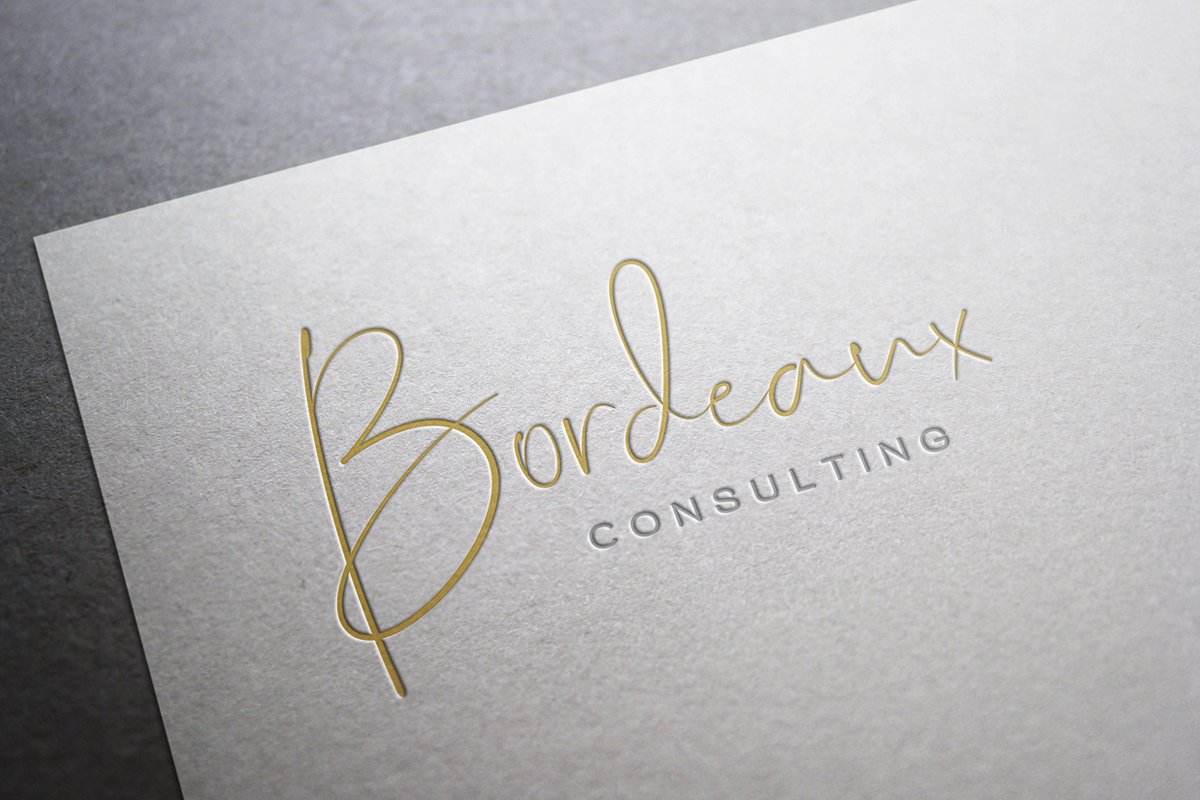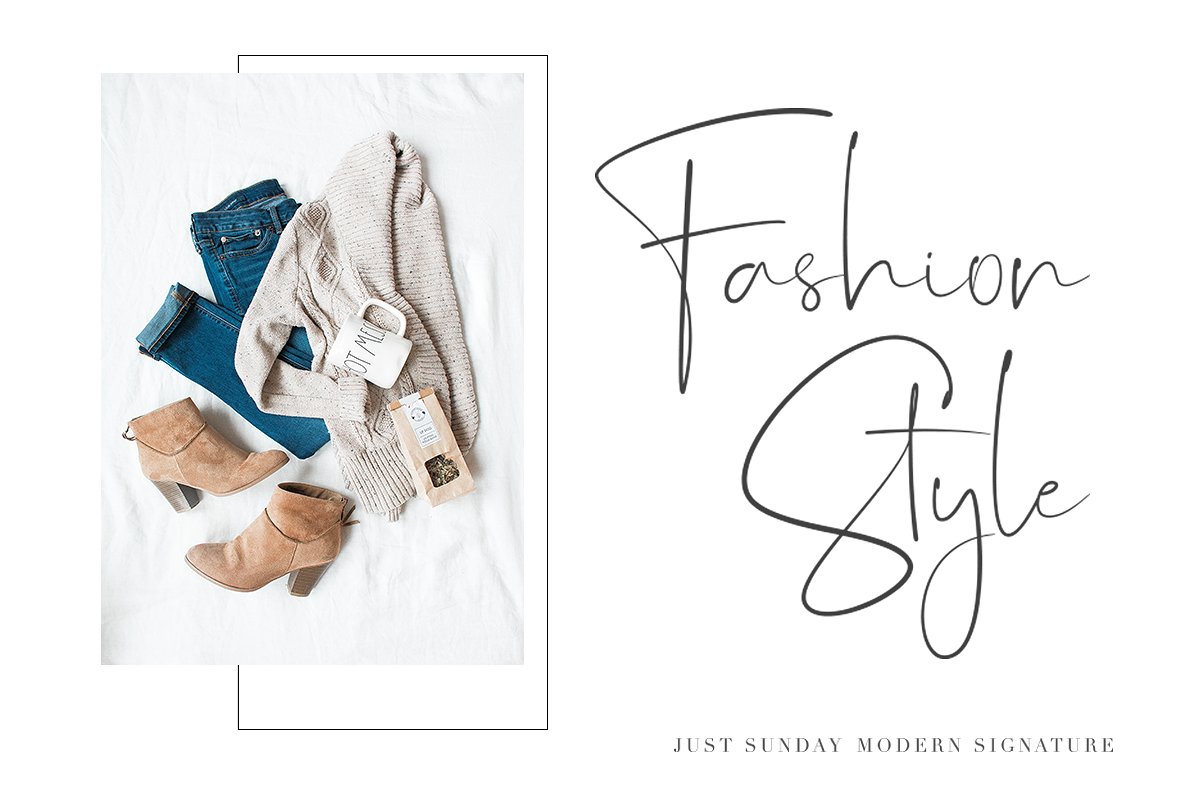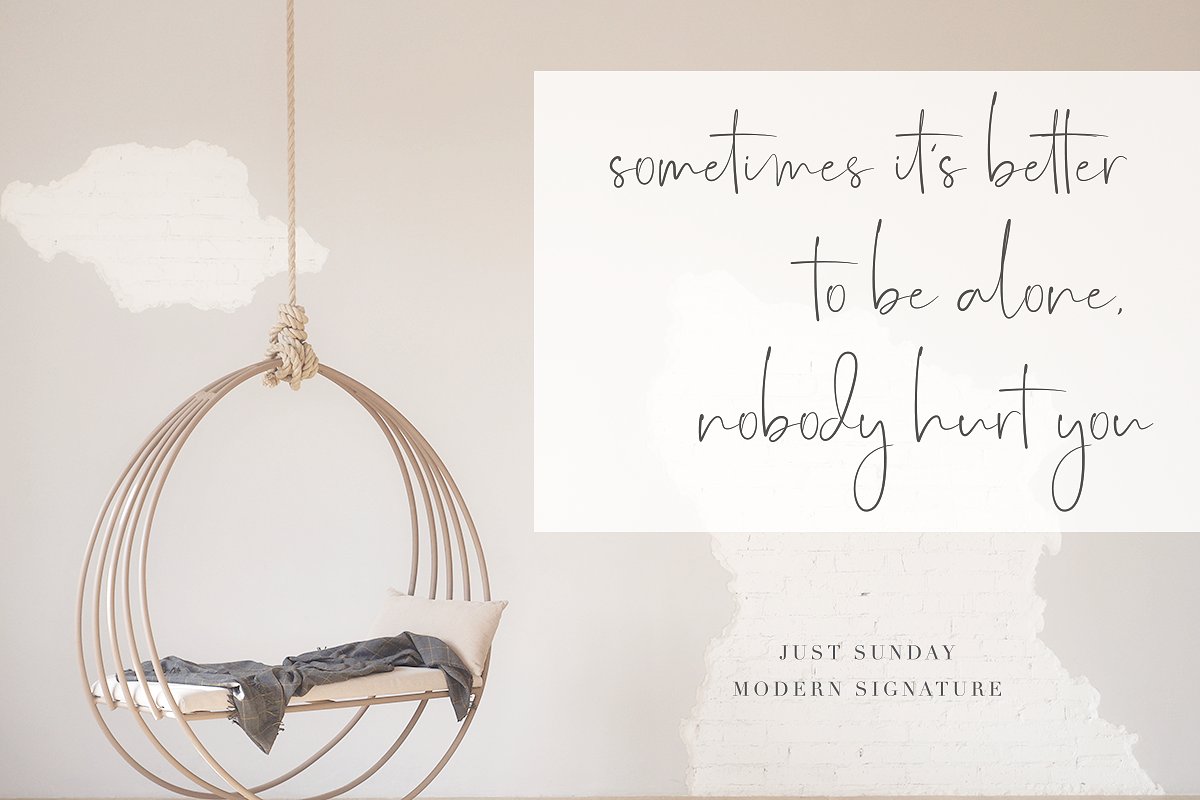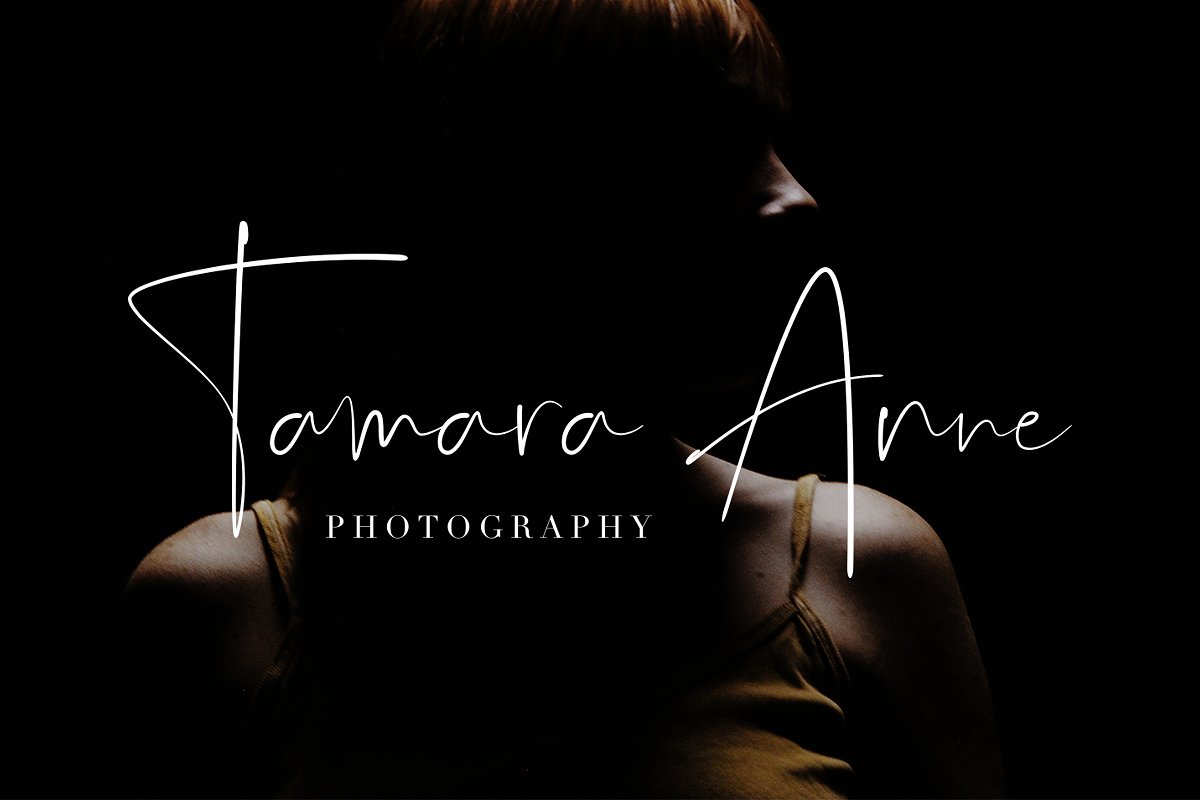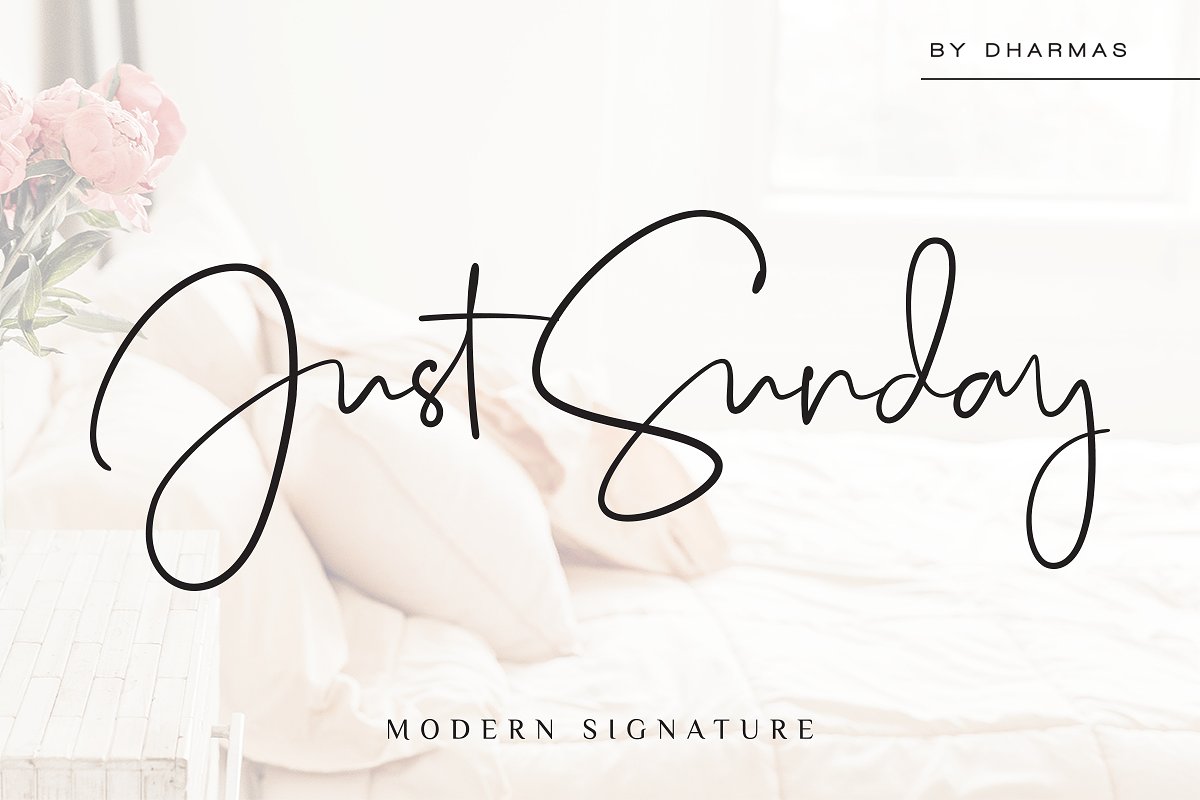
Just Sunday Script Font
Introducing! New Elegant Script Font. Just Sunday Font! This font is cute and distinctive for logo, design, wedding or branding. Just Sunday is modern feminine font, every single letters have been carefully crafted to make your text looks beautiful. With modern script style this font will perfect for many different project ex: logo, photography, watermark, quotes, blog header, poster, wedding, branding, logo, fashion, apparel, letter, invitation, stationery, etc.